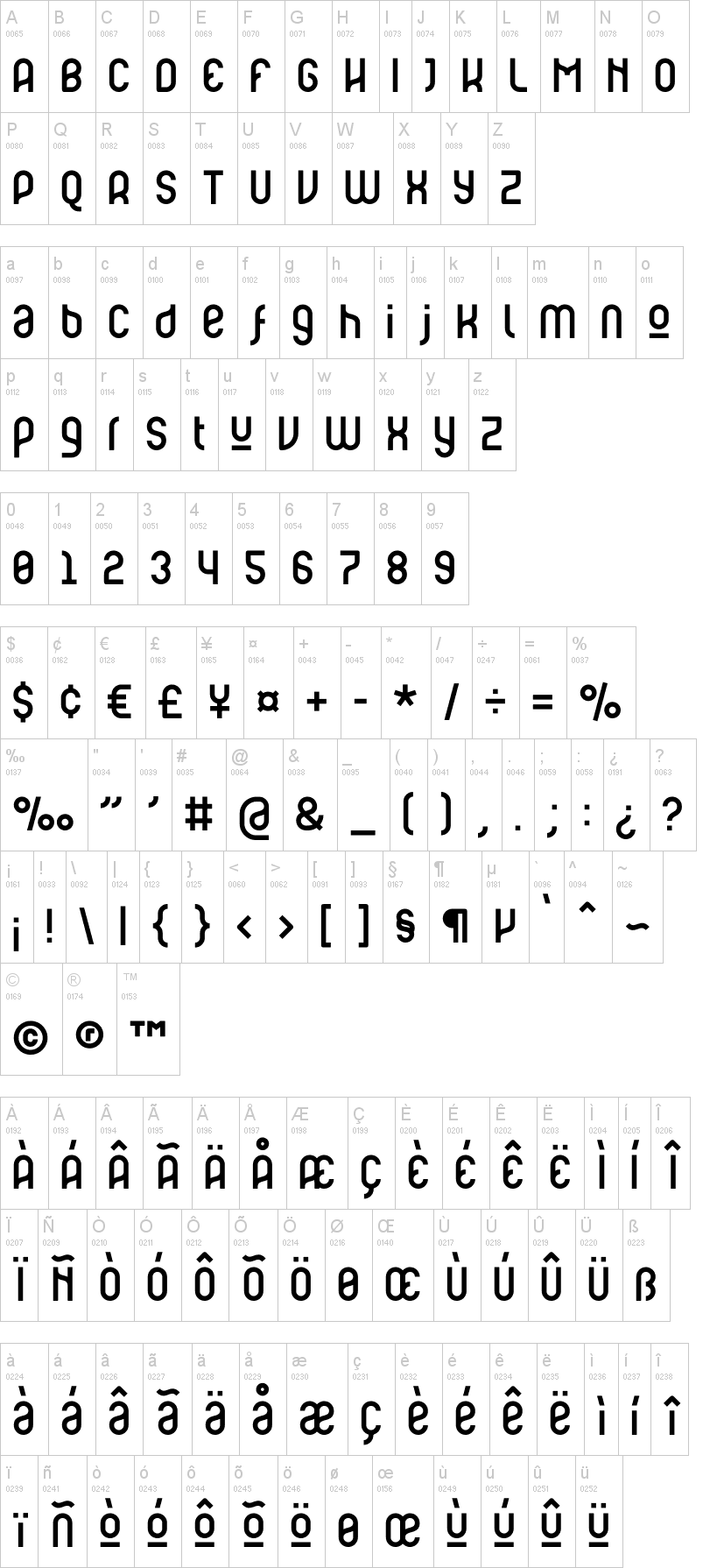
Note of the authorRuler Modern is an extended font with more than 500 glyphs, made to fit well in short paragraphs and in headlines as well. Inspired by deco/retro and monotype fonts, the construction of the characters is rather free and playful to avoid monotony and a strict grid (a lazy ruler actually).